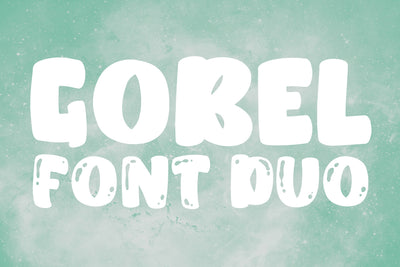
Gobel Font Duo
Gobel is a cool font duo, bold yet whimsical display font. Add this chunky lettered font to your designs and notice how it makes them come alive!